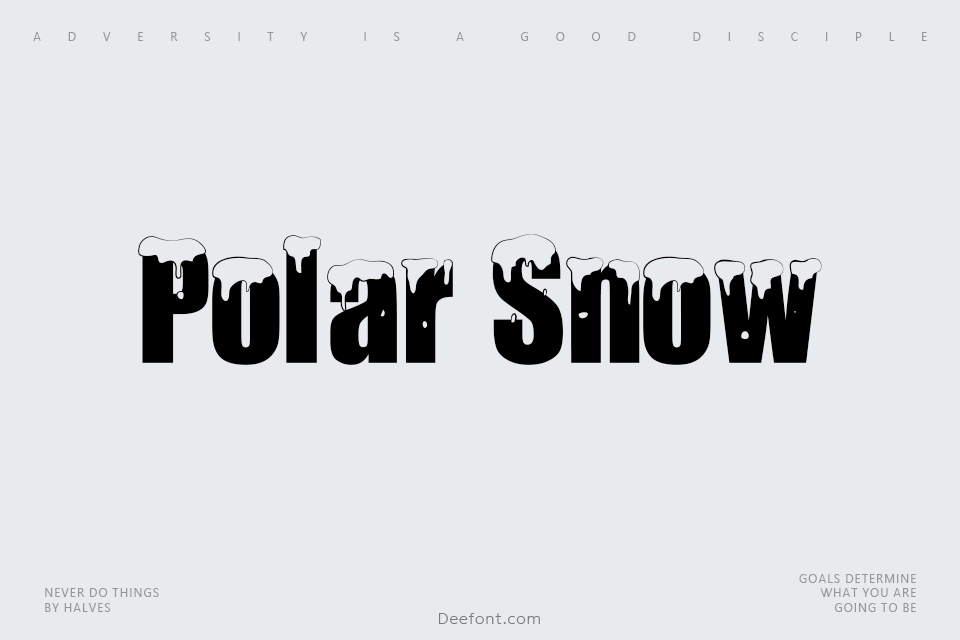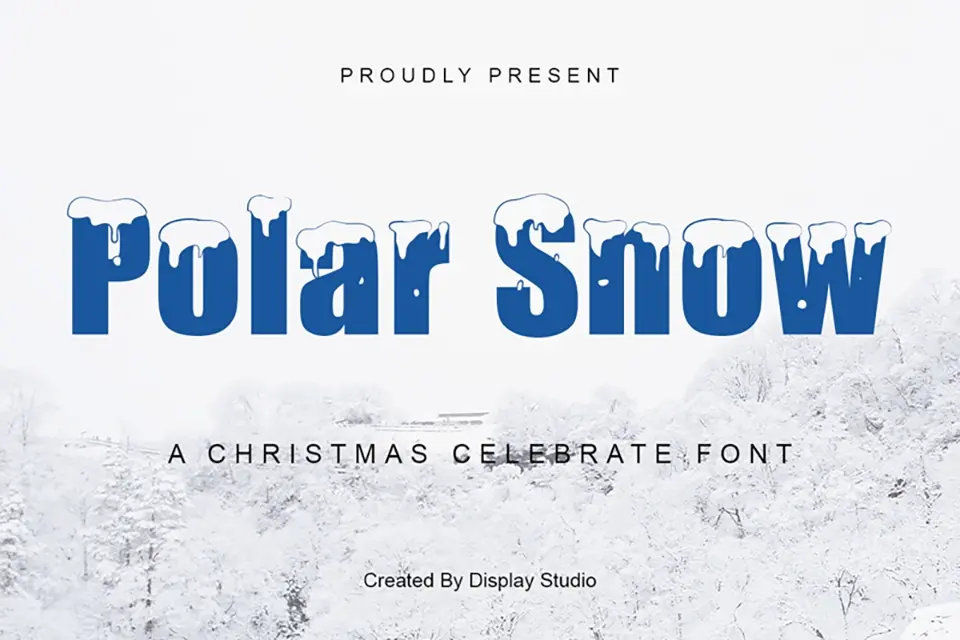
Polar Snow Font
Polar Snow is an exquisite decorative font featuring bold, playful characters adorned with snow-like accents, creating a distinctive winter aesthetic. With its distinctive frosty appearance and strong visual impact, this typeface excels in holiday-themed projects, festive banners, and seasonal campaigns. The font contains 239 glyphs supporting multiple languages, making it versatile for eye-catching headlines and creative typography designs that require seasonal charm and contemporary appeal.